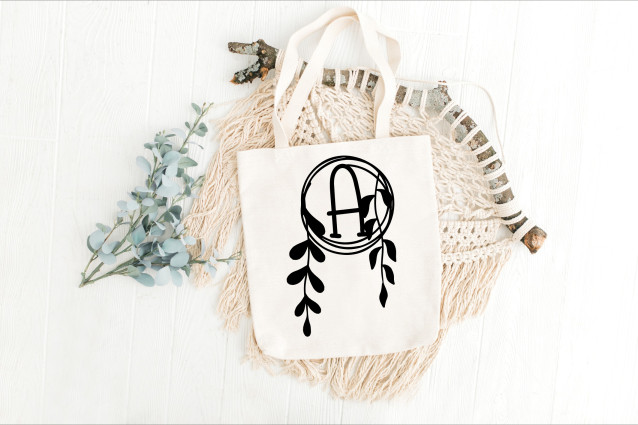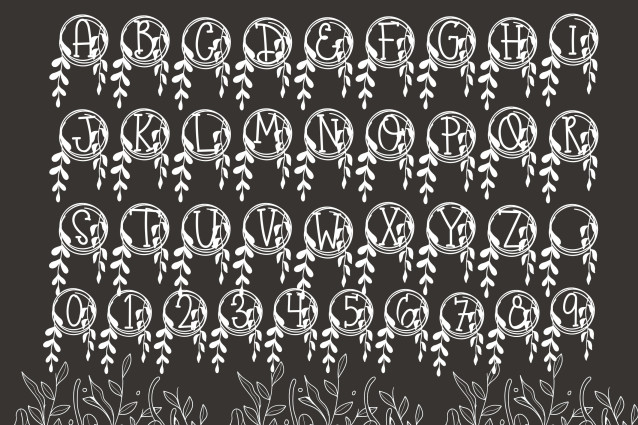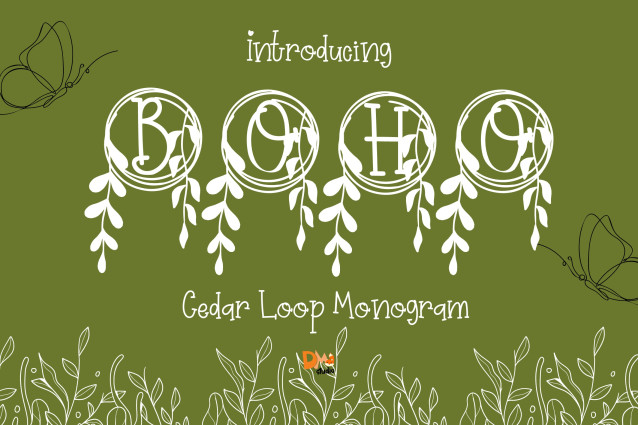
Cedar Loop Monogram Font
Cedar Loop Monogram Font is a refined serif monogram font embellished with graceful looped flourishes inspired by the natural elegance of cedar branches. With flowing details and classic serif construction, this monogram font is perfect for adding a sophisticated, organic touch to personalized designs, seasonal branding, and wedding stationery.